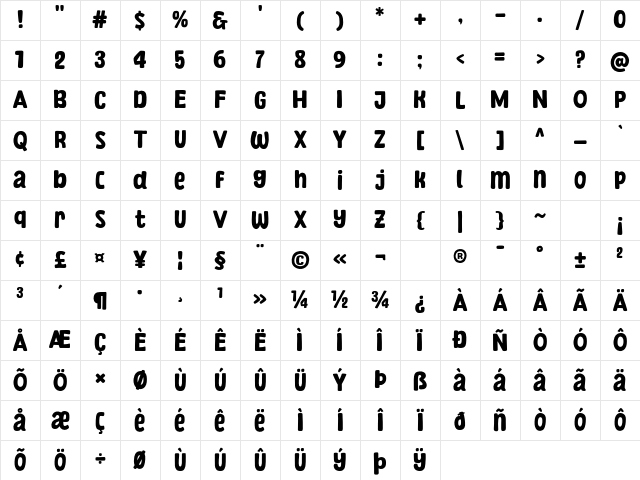
Wonderian Regular Free Font
Wonderian Regular
Foundry: Khurasan & Jalembe
Designer: Khurasan & Jalembe
Design Context for Wonderian
Wonderian is a composed and adaptable typeface that performs quietly and consistently across a wide range of design contexts.